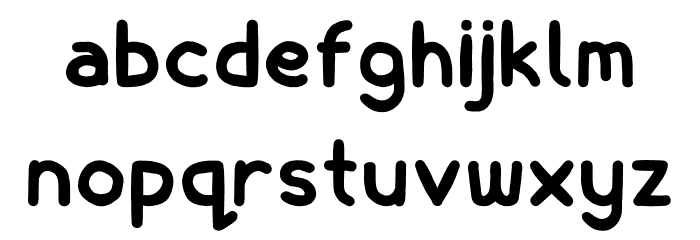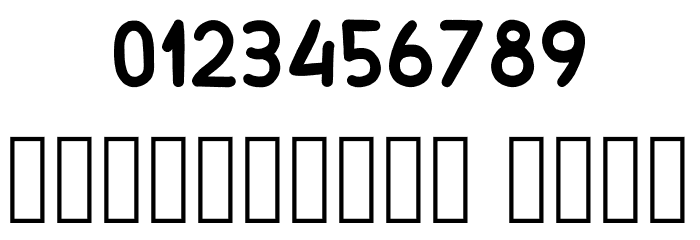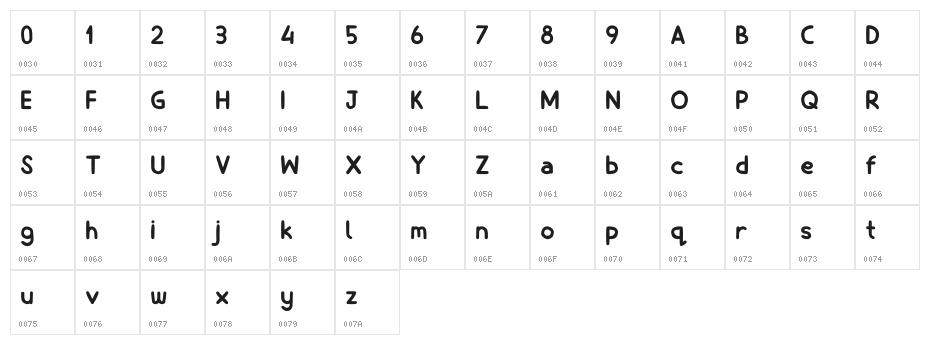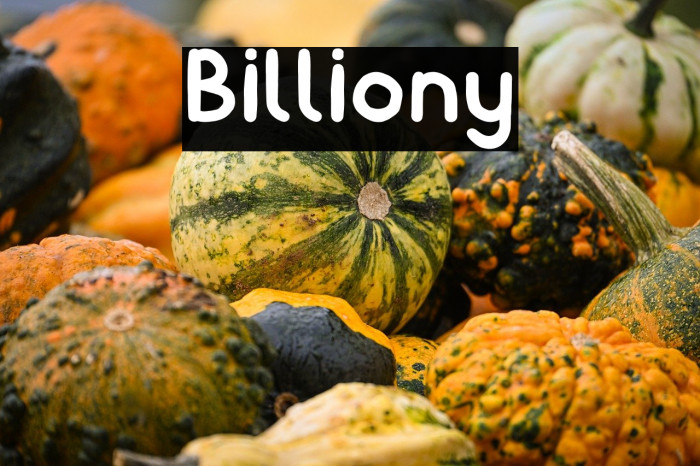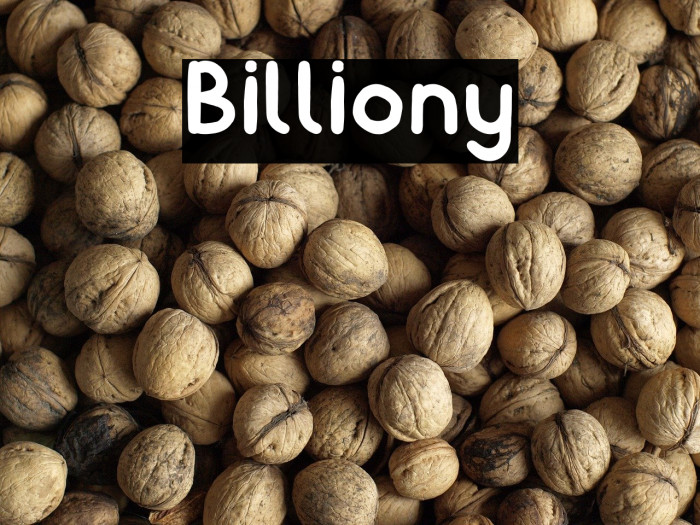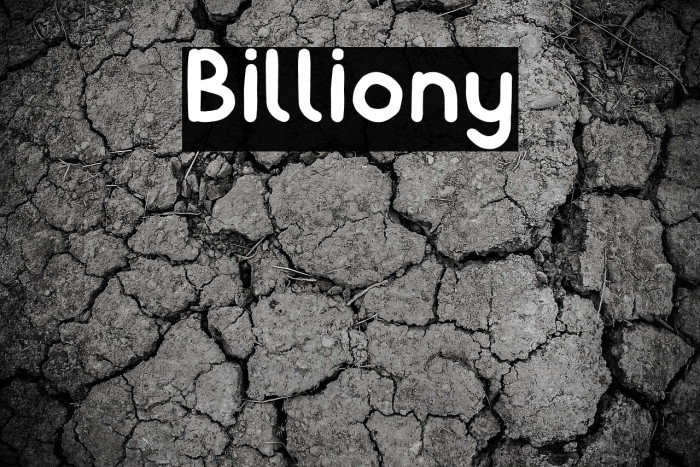
Billiony Font
This font features a playful and rounded style, characterized by its smooth curves and friendly appearance. The letters are bold and slightly condensed, giving them a compact yet approachable look. The consistent stroke width throughout the characters provides a uniform and balanced feel. The font's design is simple yet effective, making it suitable for a variety of uses where a casual and inviting tone is desired. The numerals and special characters maintain the same rounded and bold characteristics, ensuring cohesion across all elements.
A playful, rounded font with bold, smooth curves and a friendly appearance.
- Proposed Projects: Ideal for children's books, playful branding, casual invitations, and social media graphics.
- Overall Style: Playful